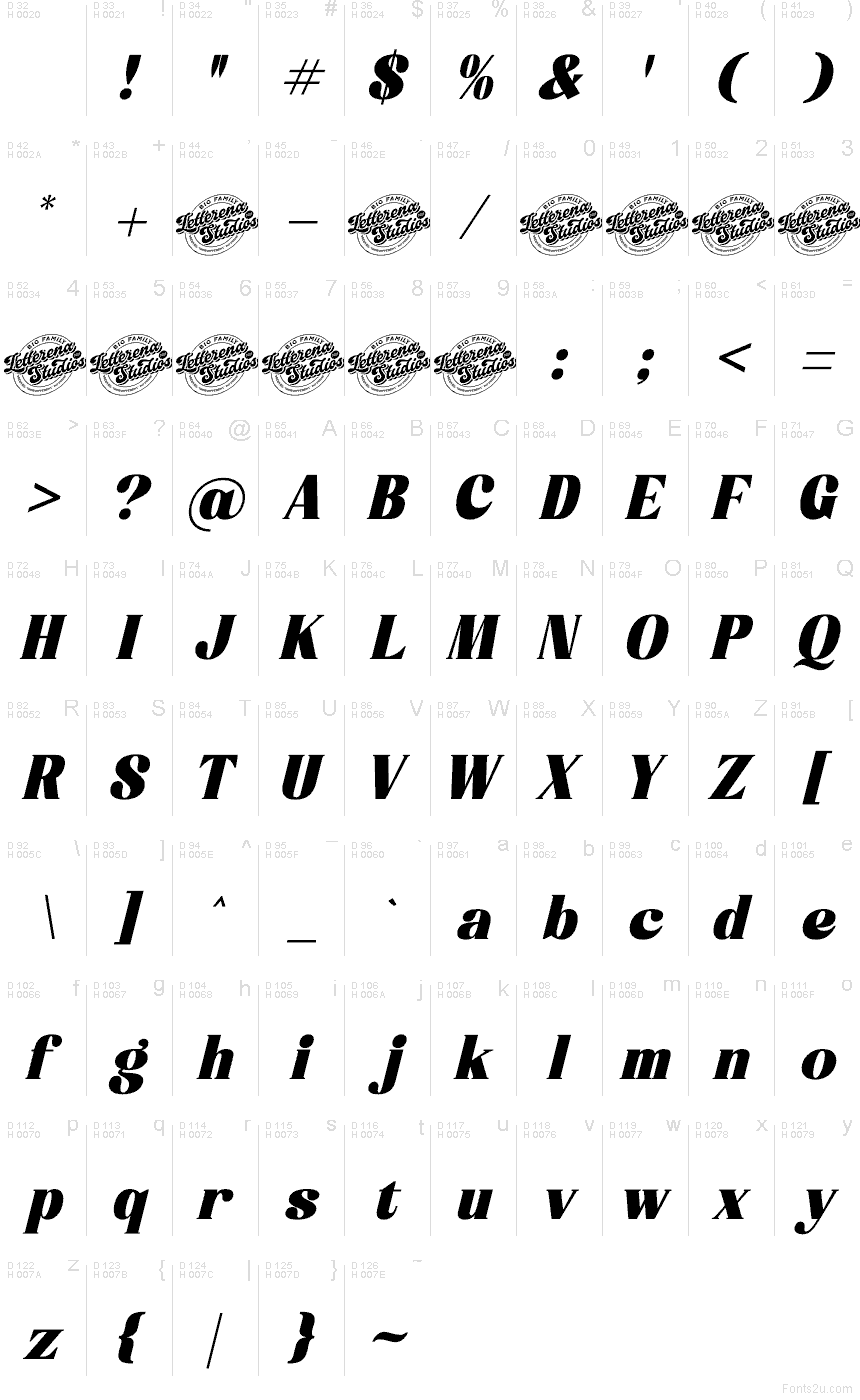
Arthur Matilde DEMO VERSION Italic
Arthur Matilde Italic font by Letterena Studios is a free italic serif font that turns every word into a confident gesture. Part of the Arthur Matilde family, its steep slant, tight rhythm, and inky, blade-like strokes give it a chic, fashion-editorial feel. The letters feel like fast, deliberate brushstrokes—elegant yet slightly dramatic—making text look curated rather than casually set.
Using Arthur Matilde Italic, headlines and names instantly gain presence, which works beautifully for logos, magazine covers, book titles, luxury packaging, invitations, and bold social media graphics. This free font thrives at larger sizes where its sweeping forms and sharp details can breathe. For balance, pair Arthur Matilde Italic with a clean sans serif for body copy and let this expressive typeface handle the hero moments.